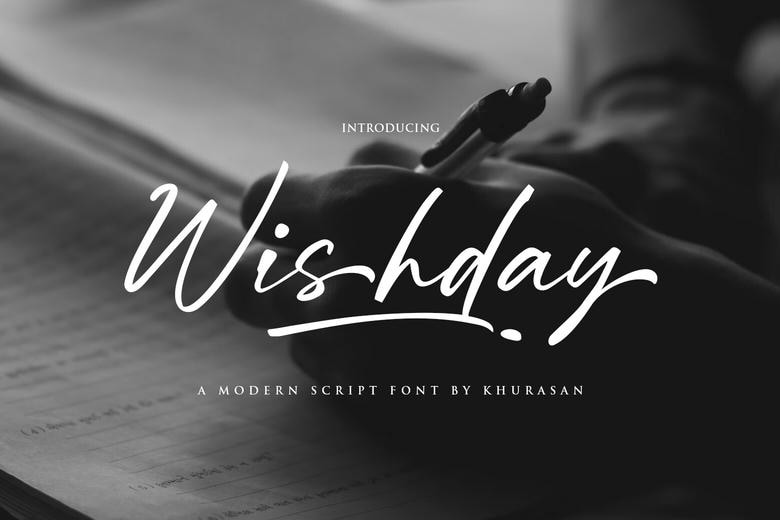
Wishday Font
Wishday is a contemporary handwritten script typeface of a clean flowing style that resembles a natural handwriting. Its skilled monoline strokes and slightly tilted letterforms are easy and well-refined yet what any design needs is a personal touch that it carries on its own hand.
Wishday is very flexible when it comes to a variety of creative work, such as branding, blog headers, social media graphics, quotes, invitations, product packaging, and minimalist logos. This font has a modular style to make it very versatile and legible, yet has the warm and authentic feel without being too sleek and modern.
Wishday Handwritten Script Font